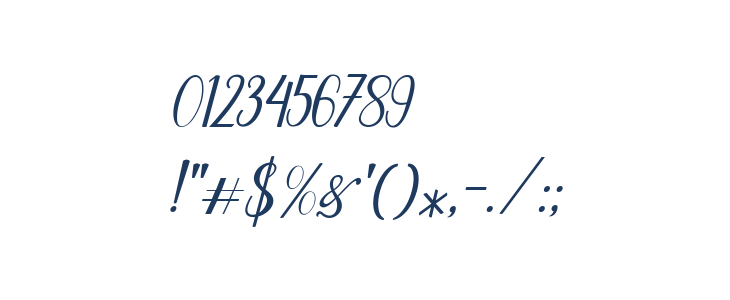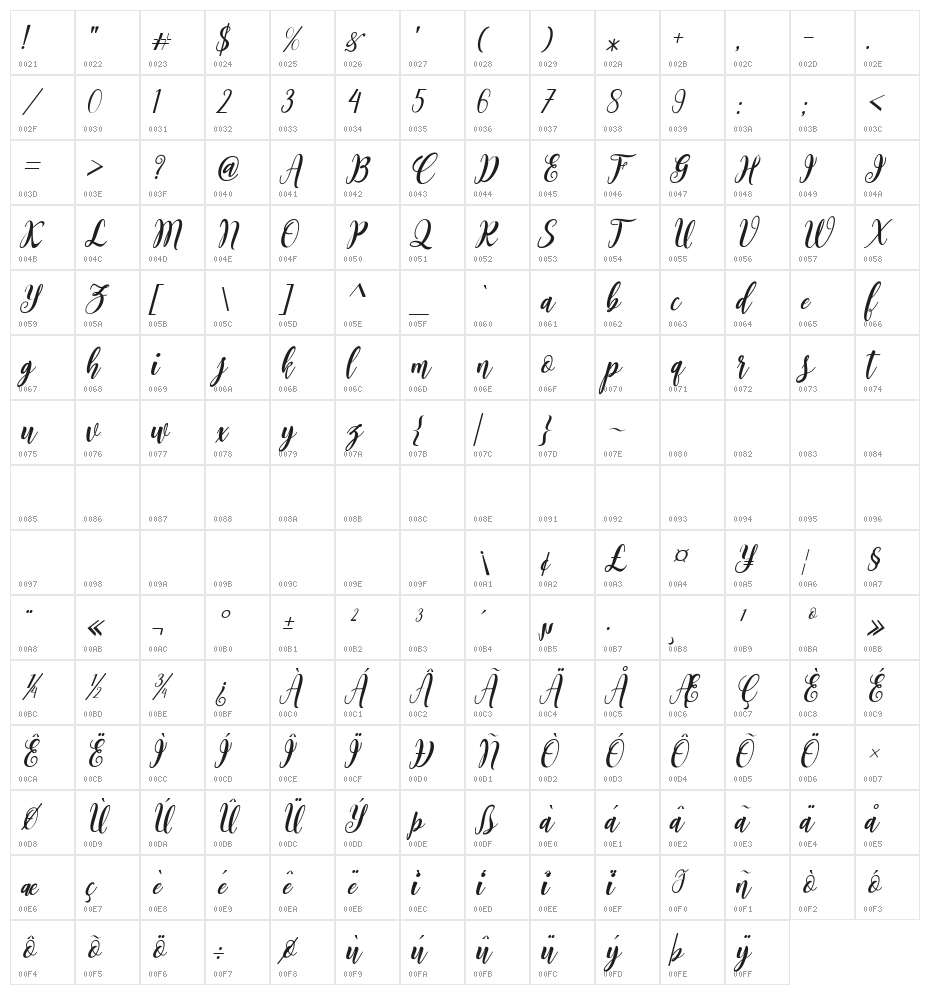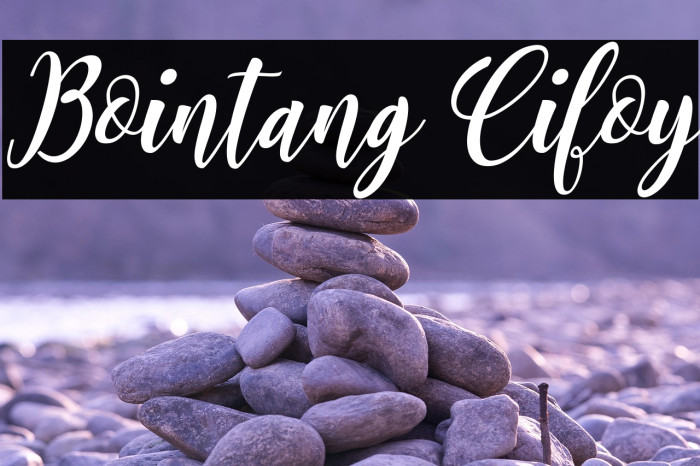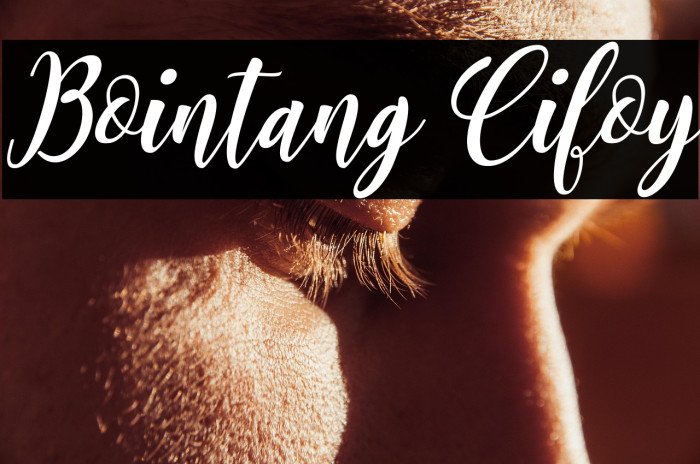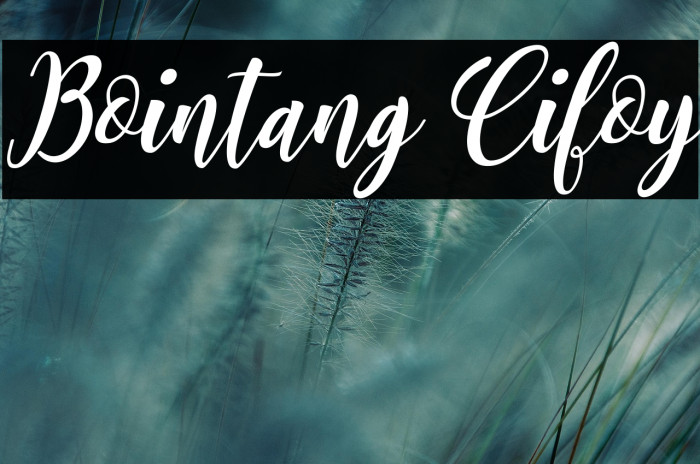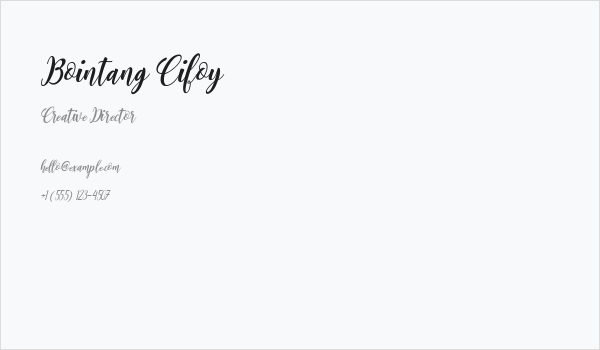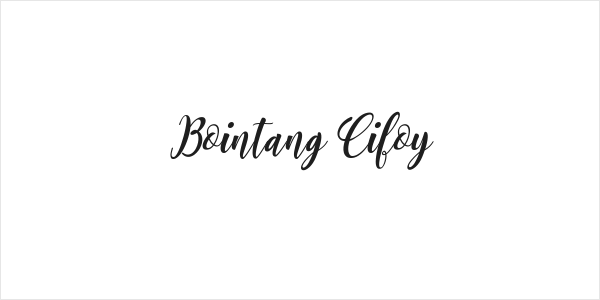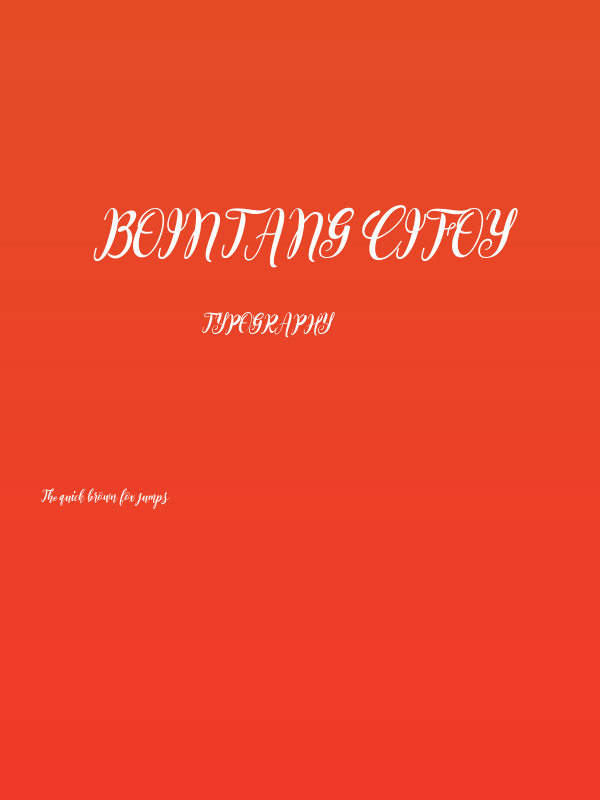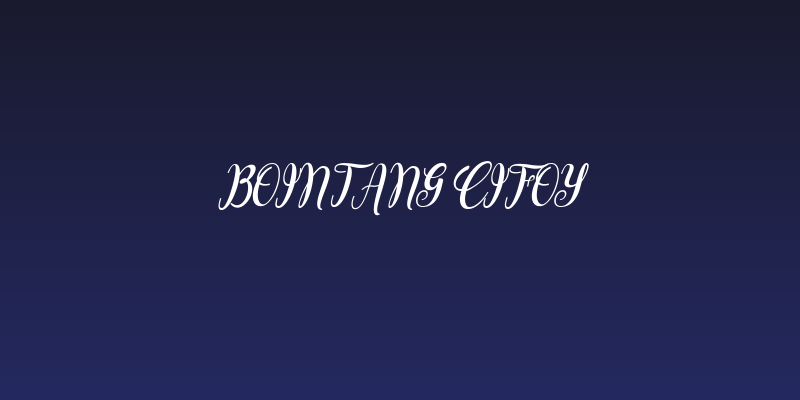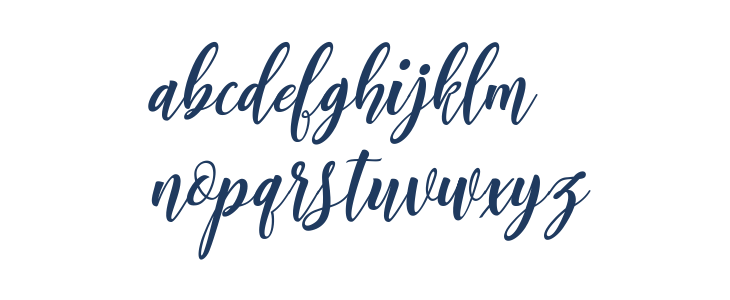
Bointang Cifoy Font
Bointang Cifoy Description
This font features a dynamic and elegant script style, characterized by its flowing, cursive letterforms. The uppercase letters exhibit a graceful, sweeping motion with pronounced loops and flourishes, while the lowercase letters maintain a consistent rhythm and fluidity. The numerals are designed to complement the script style, maintaining a cohesive look. Special characters are integrated seamlessly, enhancing the font's versatility. The overall appearance is sophisticated and artistic, making it suitable for creative and expressive design projects.
| Proposed Projects | Ideal for wedding invitations, greeting cards, branding, and logo design where a touch of elegance and personal flair is desired. |